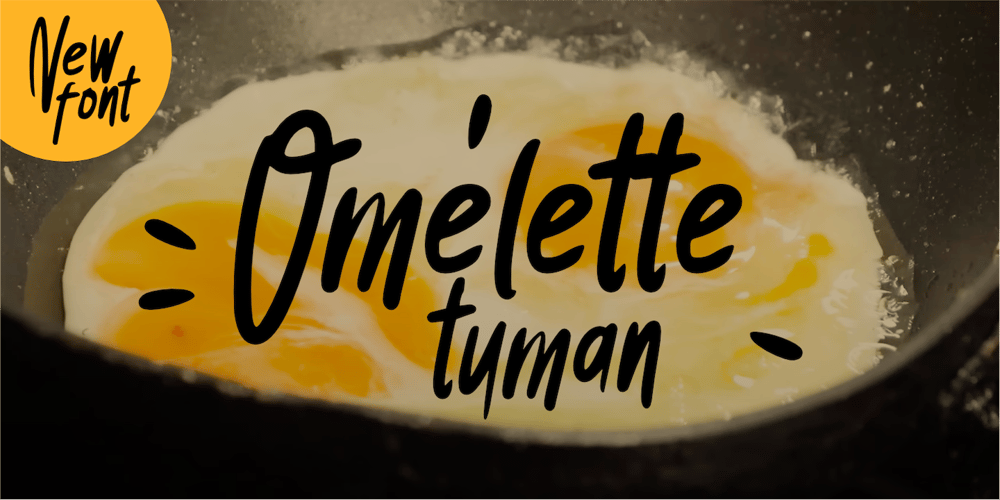
Tuman Font Family was designed by Wahyu Eka Prasetya, Afiat Sukmaraga and published by Hati. Tuman contains 1 styles and family package options. Introducing our new font that exudes a casual and warm feel, reminiscent of handwritten ink. This font is designed to add a personal touch and authenticity to any creative project. With its natural handwriting style and smooth ink strokes, this font is perfect for culinary menus, recipe books, café chalkboards, and various other informal applications. Each character is meticulously crafted with attention to detail, creating a gentle and friendly writing flow. This font is not only easy to read but also adds an engaging and delightful visual element. Whether you want to create a cozy atmosphere in your restaurant or add a personal touch to your graphic designs, this font is the perfect choice. Experience the warmth and creativity in every letter, making your visual communication more lively and memorable.